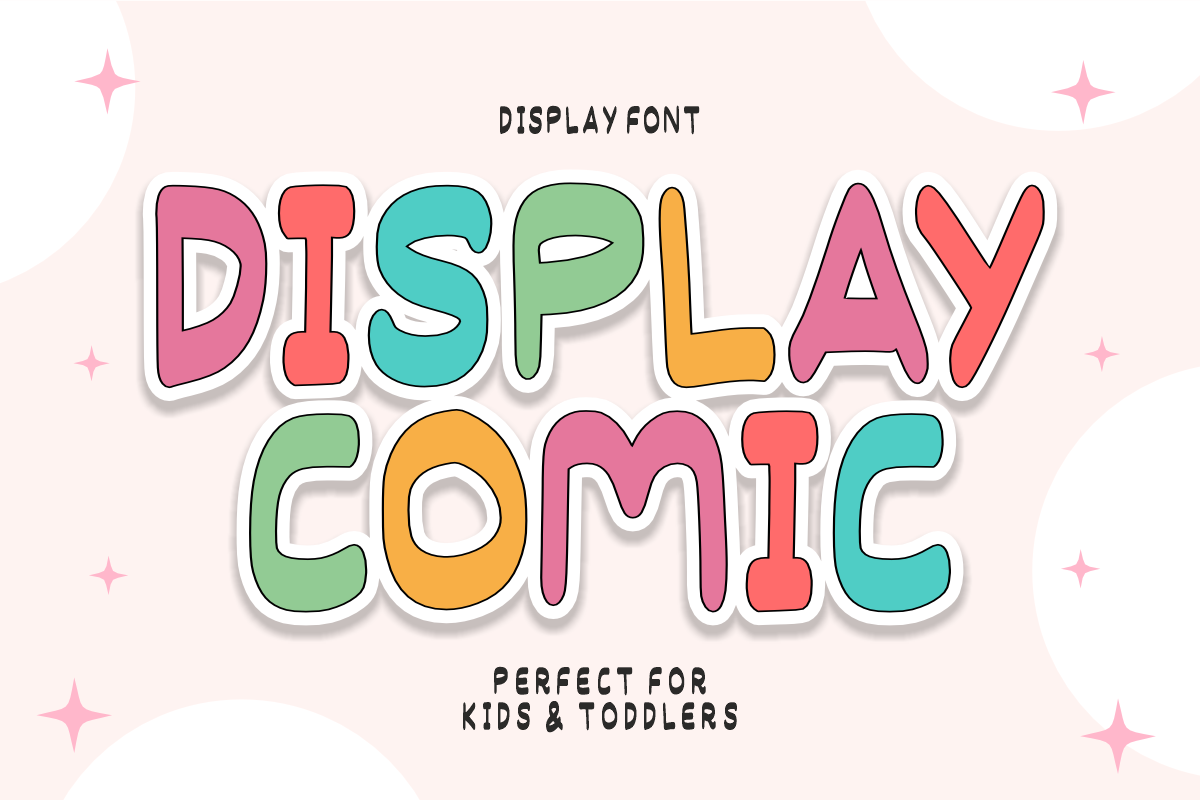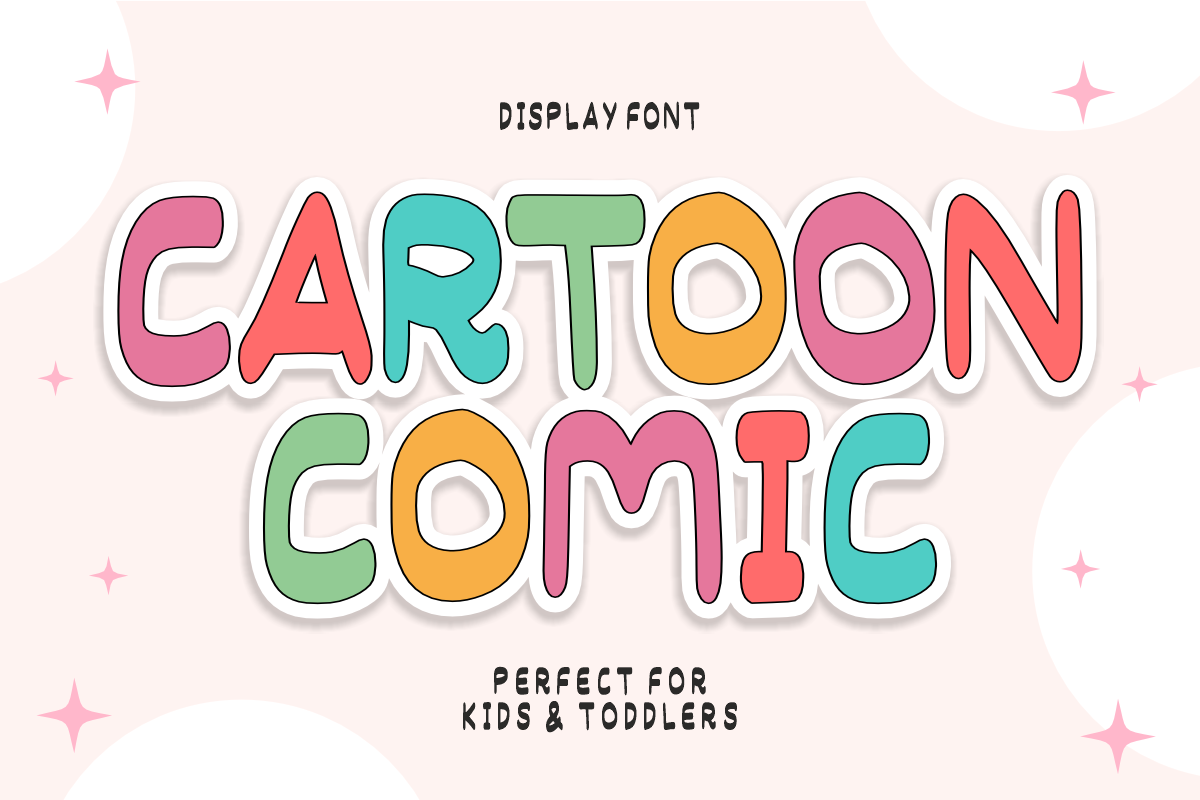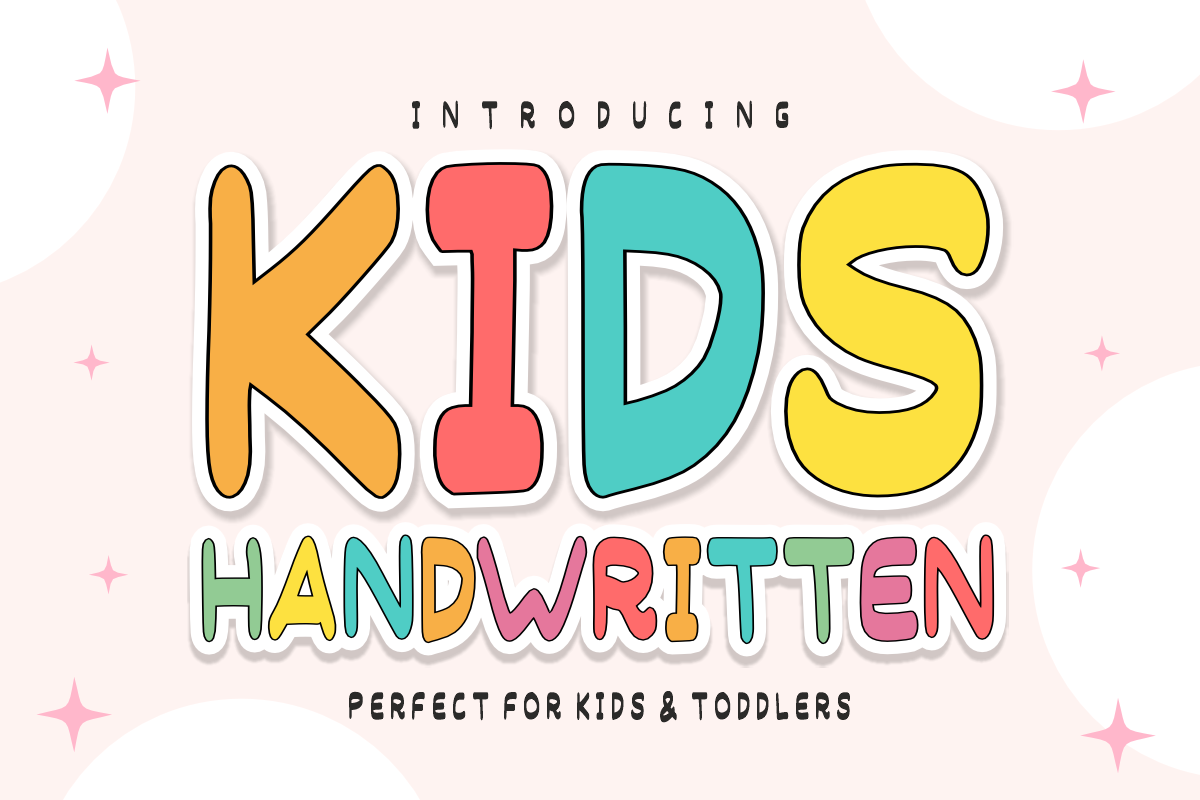
Kids Handwritten - Display Font
Kids Handwritten - Playful Bubbly Display Font
Capture the innocent joy and energetic creativity of childhood with Kids Handwritten! True to its tagline, this delightful hand-crafted font is "Perfect for Kids & Toddlers," making it an absolute must-have for any juvenile, educational, or family-oriented project.
Featuring a friendly, hand-drawn aesthetic with a cheerful, bouncing rhythm, Kids Handwritten instantly makes headlines pop while maintaining excellent legibility. It perfectly bridges casual, whimsical charm with clean vector precision, ensuring seamless integration across professional digital and print design workflows.
All-Caps Character Set (Chunky and playful uppercase letters with an organic feel)
Numbers & Basic Punctuation (Essential, simple symbols included)
Children’s Branding & Playful Logo Design 🎨
Kids' Product Packaging, Toy Labels, & Nursery Decor 🧸
School Projects, Daycare Identity, & Educational Materials 🎒
Social Media Marketing & Engaging Visual Content 📱
Cricut, Silhouette, & DIY Craft Sublimation Projects ✂️